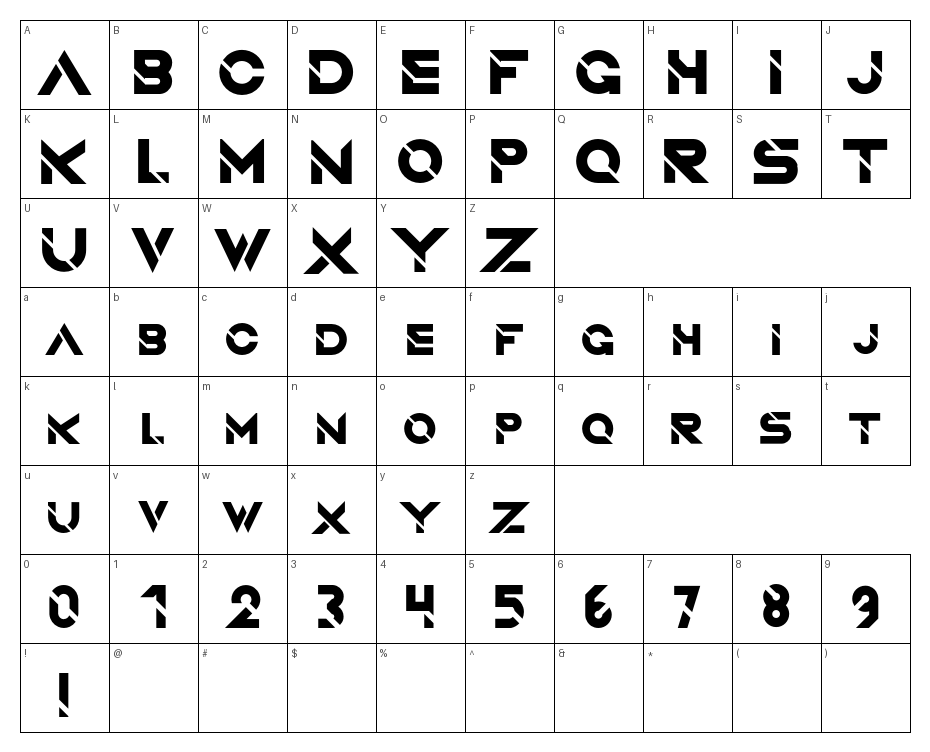
Quantum
Sesohq
Awesome bold font to use with anything gaming related or all-round! Font was created for my community on Youtube where I do tutorials for 76,000+ people.
Quantum
Sesohq